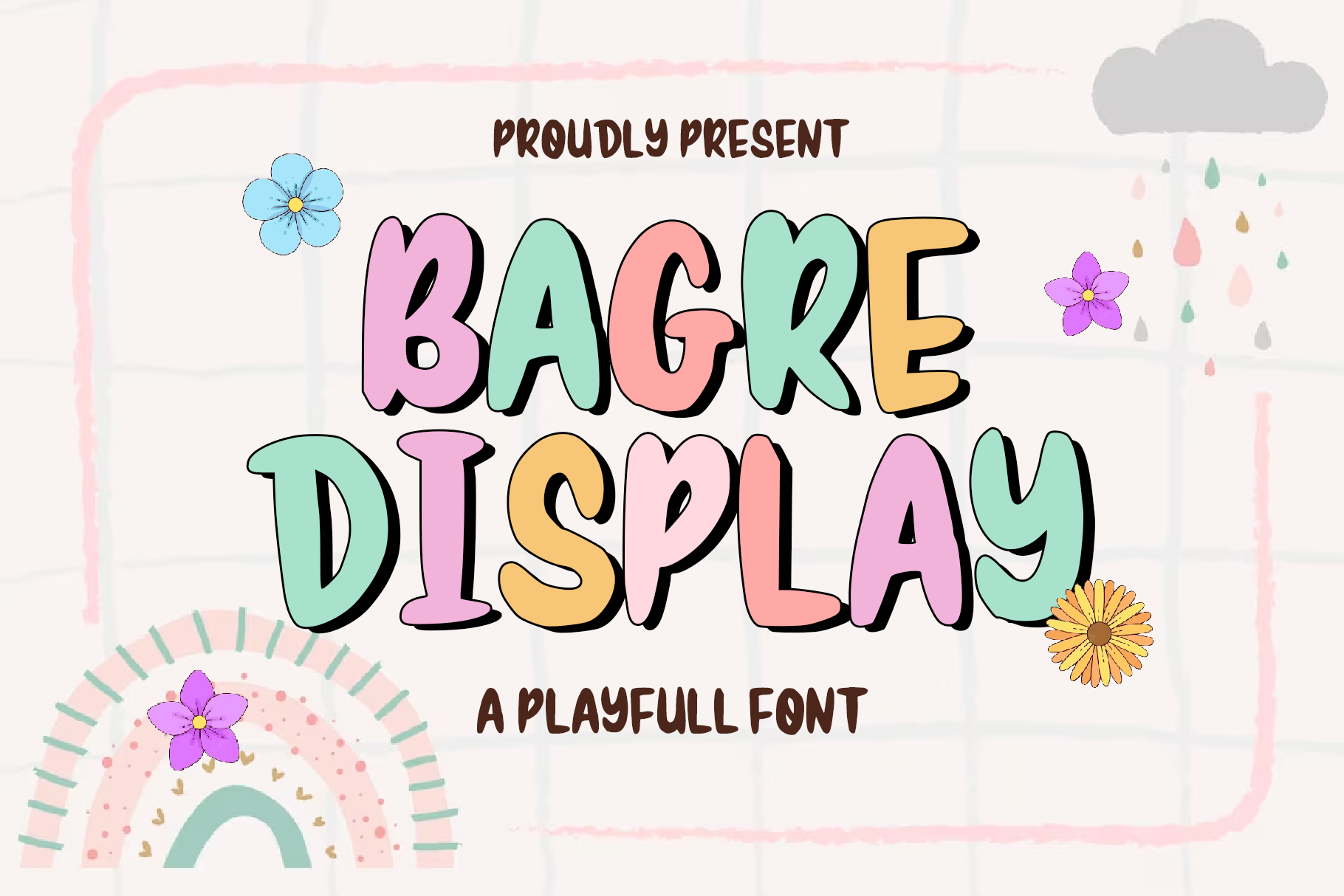
Bagre Groovy Font
Bagre Groovy is a bold, and thick font that will help you create fun and playful designs and will look good on a variety of branding and packaging projects. This chubby font features the perfect combination of fun and creativity to instantly grab anyone’s attention.